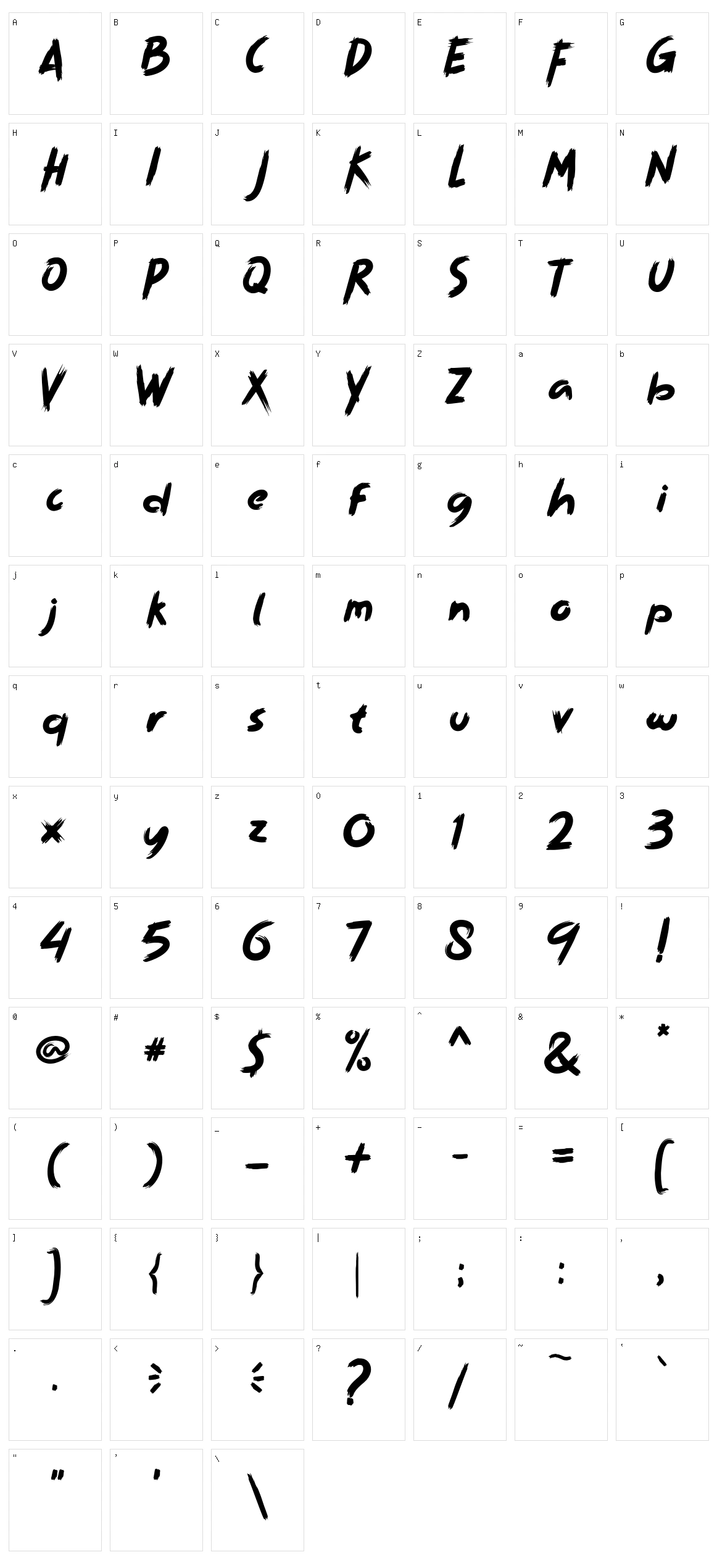
The free font Bromph Town is carefully designed by Beta Dine, showcasing a thoughtful balance of creativity and usability and falls under the Script font style. When you download the ZIP file, it contains only 199.94 KB of font files, making it lightweight and quick to download. Please review the license details below to understand permitted usage and distribution rights. If license information is not available, we recommend using this font for personal projects only or contacting the author directly for commercial usage permissions.